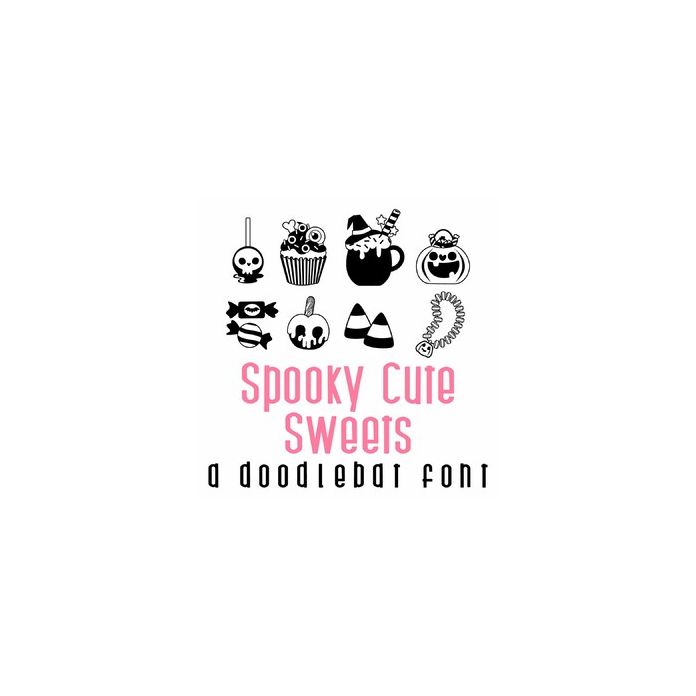
Spooky Cute Sweets Doodlebat Font
This adorable doodlebat font features 26 cute Halloween sweets perfect for parties, gifts, cards, planner stickers, scrap book pages, decor and more!